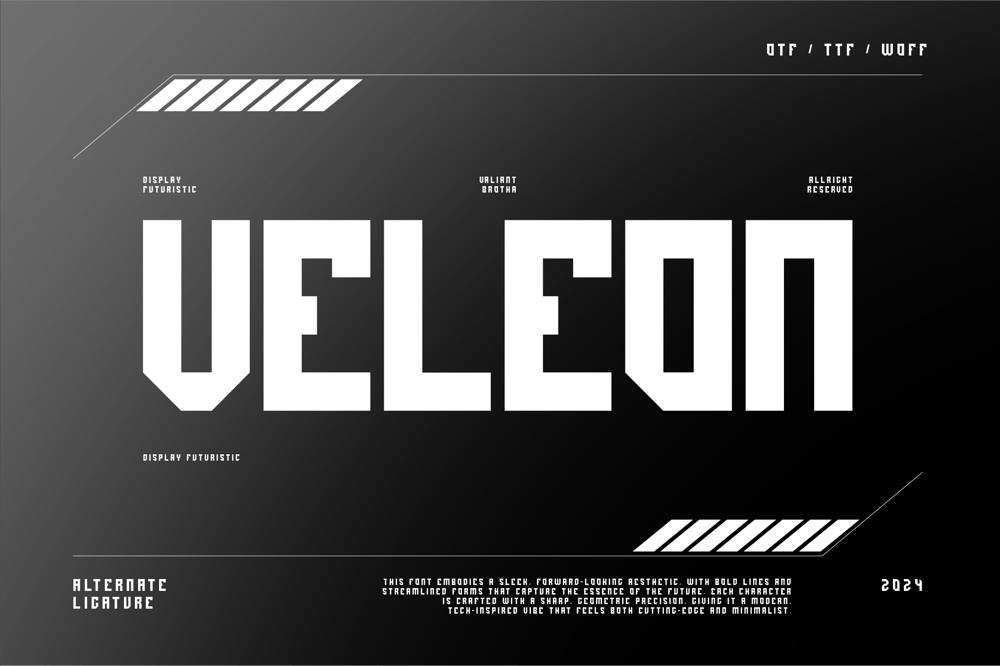
Veleon Font Family was designed by Agus Prima and published by Valiantbrotha. Veleon contains 1 styles and family package options. Veleon is a bold and dynamic display typeface designed to push the boundaries of modern design. With its futuristic and techno-inspired aesthetic, Veleon features sharp, clean lines, and angular forms that convey a sense of cutting-edge technology and innovation.